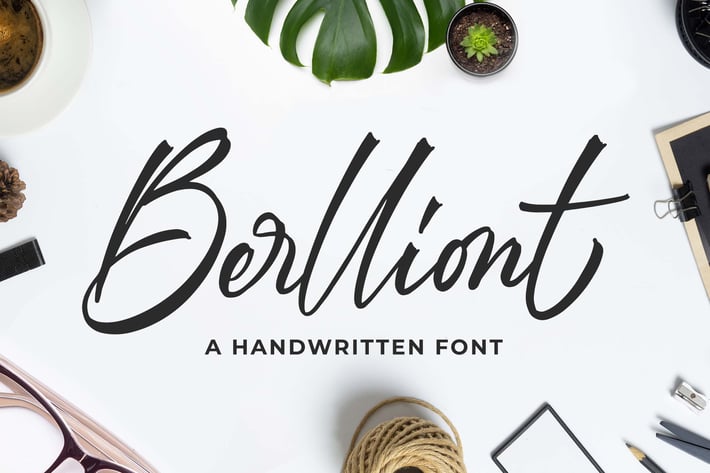
Berlliont a Handwitting Font
Introducing of our new product the name is Berlliont a Handwitting Font. Berlliont inspired by modern calligraphy style this font is a fun theme very good for display, wedding, valentine theme, logotype and etc
MULTILINGUAL ACCENT :
ØÆøæ¢ÐŒœÁĂÂÀÄĄÅÃǼĆČÇĈĊĎÉĔĚÊËĖÈĘĞĜĢĠĤÍĬÎÏİÌĮĨĴĶĹĽĻĿŃŇŅÑÓŎÔÖÒŐǾÕŔŘŖŚŠŞŜȘŤŢÚŬÛÜÙŰŲŮŨẂŴẄẀÝŶŸỲŹŽŻáăâäàąåãǽćčçĉċďéĕěêëėèęğĝģġĥíîïìįĩĵķĺľļŀńʼnňņñóŏôöòőǿõŕřŗśšşŝșťţŭûüűùųůũẃŵẅẁýŷÿỳźžż